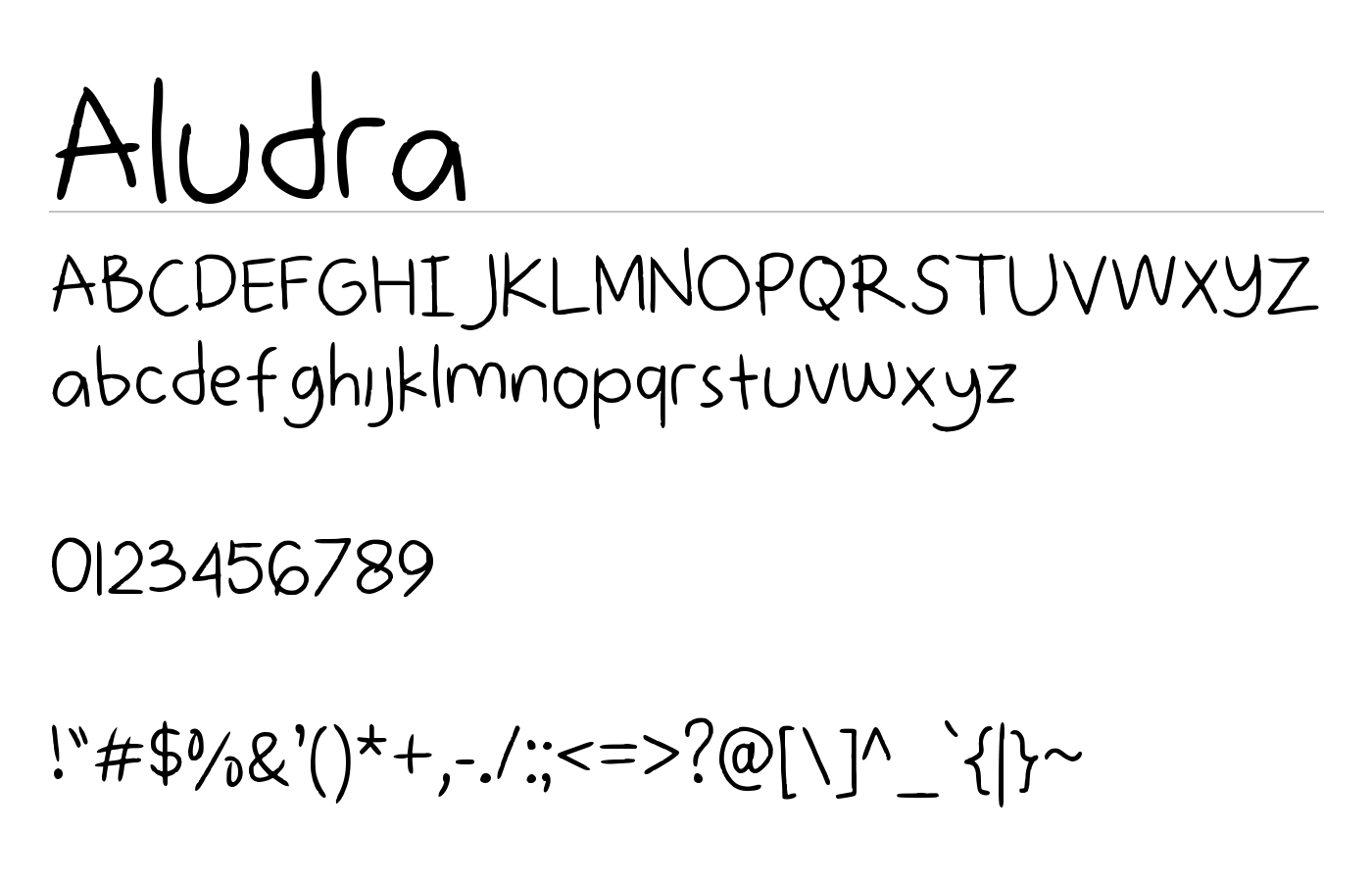
Aludra is a casual, handwritten sans serif font with a light weight and a playful, organic feel. Its tall x-height and slightly irregular letterforms give it a friendly, approachable personality, making it ideal for informal, creative projects like children’s books, personal branding, or social media graphics. This font works best where a warm, human touch is needed, adding charm and personality without sacrificing readability.
Aludra Font